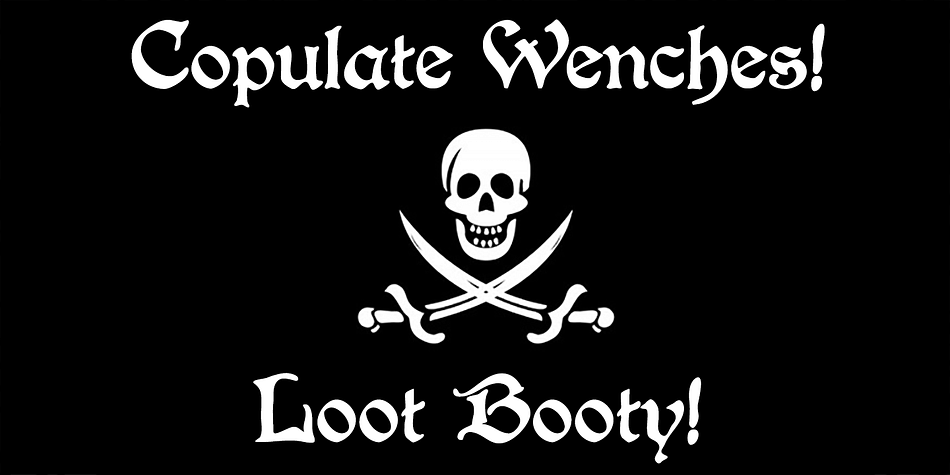
Boister Black Pro is a blackletter font published by CheapProFonts.
I loved the look of this font so much that I couldn’t resist reworking it - although it probably had the most basic character set I’ve ever used as a starting point. But here it is in its complete, professional, multilingual state. I hope this wonderful swashbuckling font now finds many new users and uses. Celebrate!